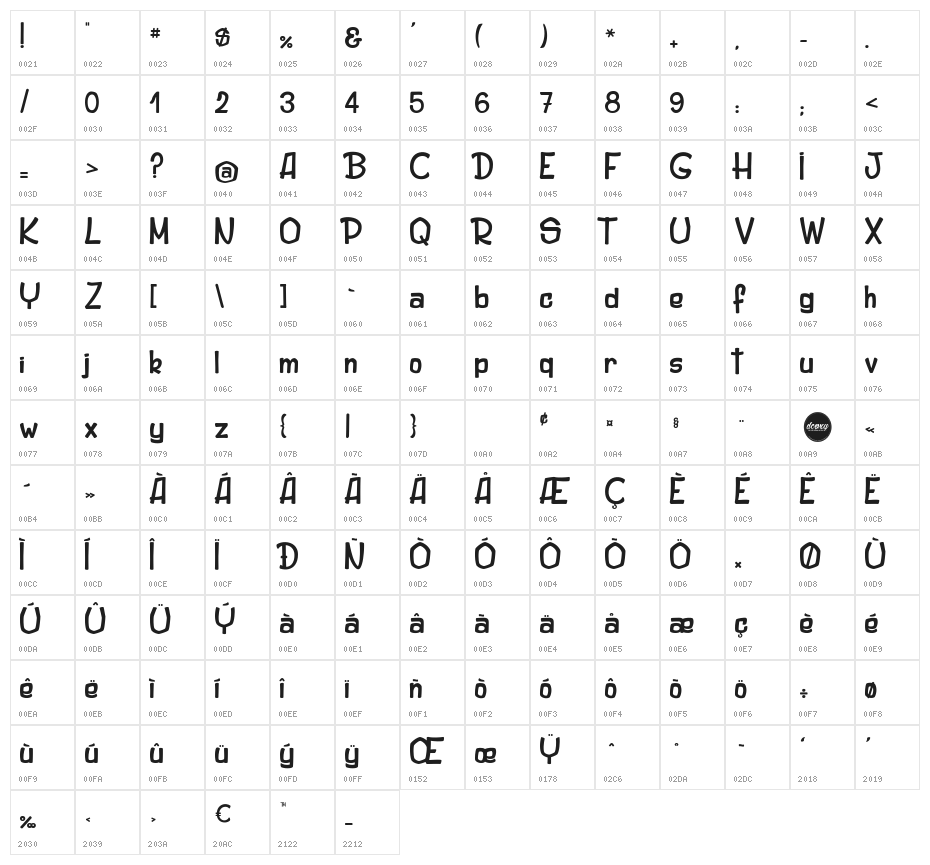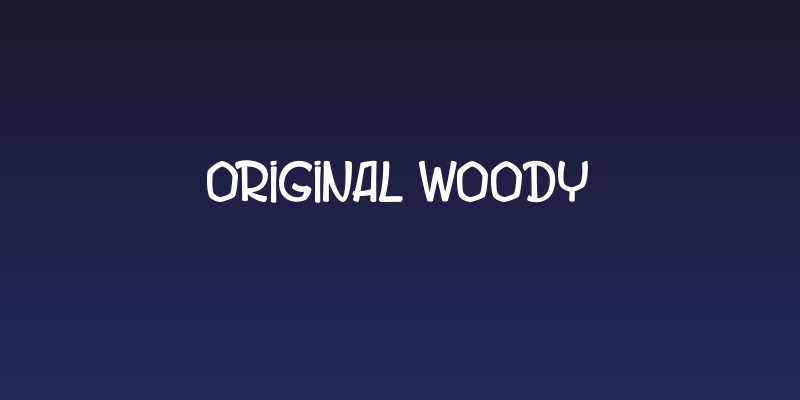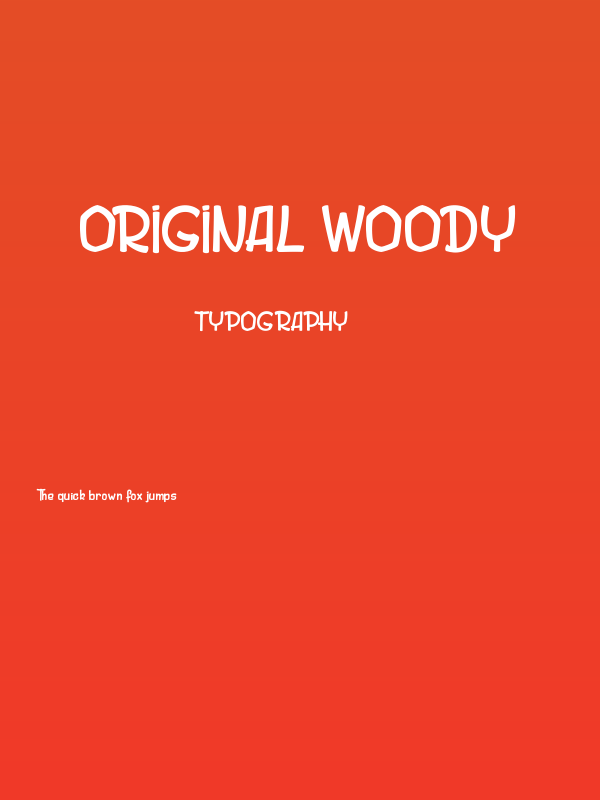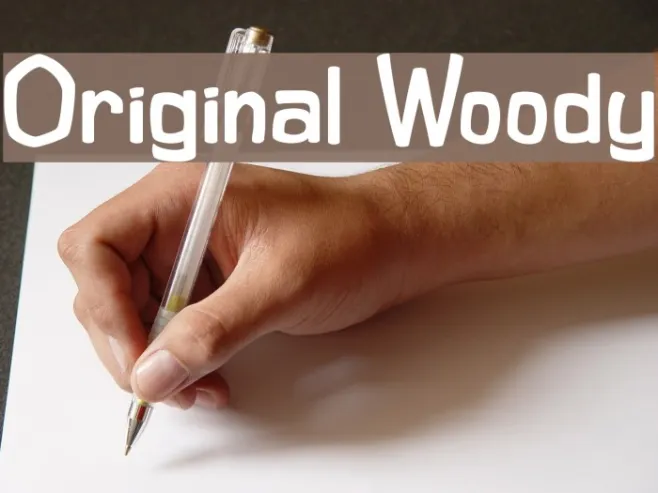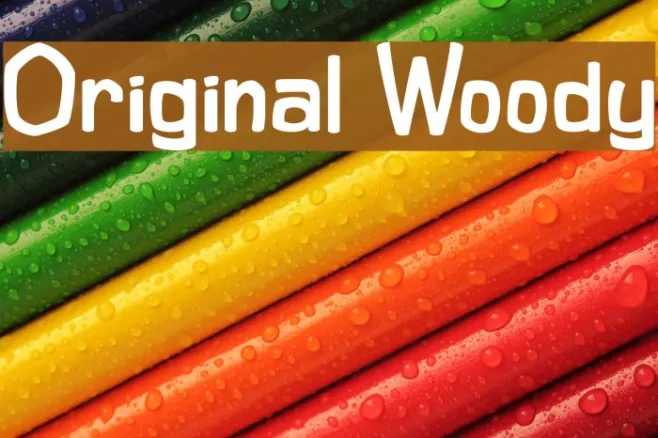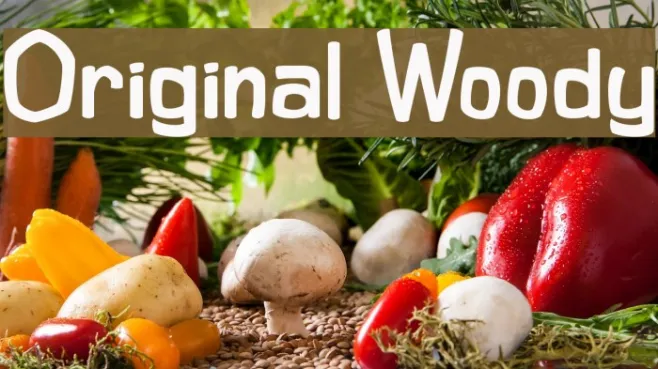
Original Woody Font
Original Woody Description
This playful and whimsical font features a hand-drawn aesthetic with a bold and slightly irregular stroke. The characters have a rounded, friendly appearance, making them approachable and fun. The uppercase letters are distinct with a slight slant, adding to the casual feel. Lowercase letters maintain the same playful style, with unique touches like the looped 'g' and the curved 'y'. Numbers are clear and consistent with the overall style, while special characters retain the same bold, hand-crafted look. This font is perfect for projects that require a touch of personality and creativity.